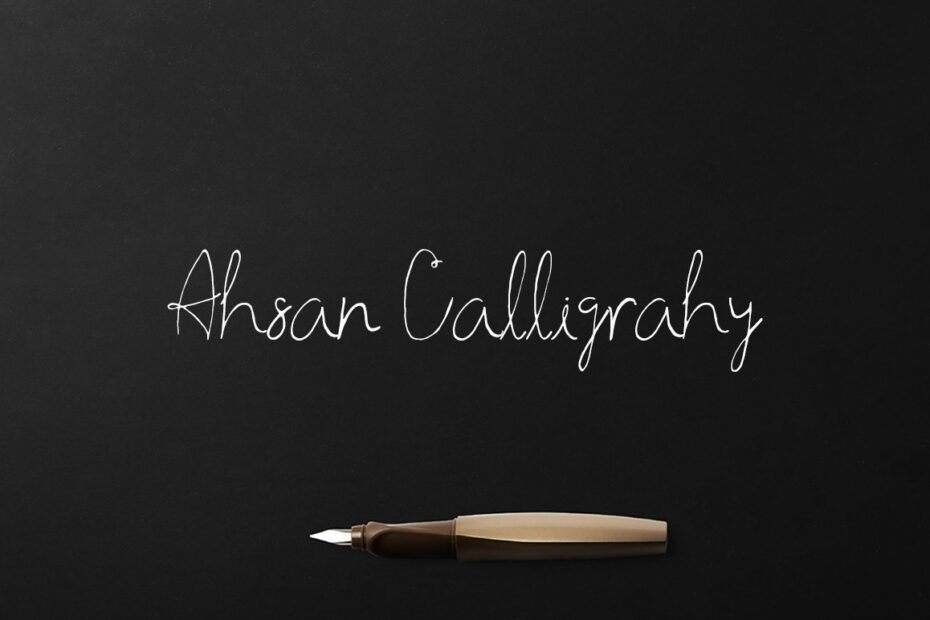
Unleashing the Art of Ahsan Calligraphy Font
There’s something magical about the moment when an idea sparks, and creativity flows. You’re sitting at your desk, surrounded by scraps of paper, and your imagination starts to run wild. The words begin to flow, and before you know it, you’ve created something beautiful. For designers, this moment is what it’s all about – bringing a vision to life.
For those seeking the perfect font to elevate their designs, we present the Ahsan Calligraphy Font. This stunning script font is designed with contemporary, enlightened accents, making it a versatile choice for a wide range of designs. From elegant invitations to modern branding, the Ahsan Calligraphy Font is the perfect addition to any project.
With its full set of gorgeous uppercase and lowercase letters, numerals, punctuation, and ligatures, the Ahsan Calligraphy Font offers endless possibilities for designers. Its value lies in its ability to add a touch of sophistication and elegance to any design, making it a must-have for any creative project.
Ahsan Calligraphy Font Key Features
- Font Style: The Ahsan Calligraphy Font is a beautiful, elegant script font designed for calligraphy and artistic purposes.
- Language Support: The Ahsan Calligraphy Font supports a wide range of languages, including Arabic, Persian, Urdu, and English, making it a versatile choice for multilingual designs.
- Unique Characteristics: The font features intricate, hand-crafted calligraphy and ornate details, giving it a unique and sophisticated look that sets it apart from other fonts.
Ahsan Calligraphy Font Review
I’ve had the chance to work with the Ahsan Calligraphy Font, and I must say it’s a unique and interesting addition to any design project. ✨ One of the things that works well is the elegant and intricate design, which is perfect for creating a sense of sophistication and luxury. The font’s ability to add a touch of cultural flair is also a major plus, especially when working on projects that require a Middle Eastern or South Asian aesthetic.
Another advantage of the Ahsan Calligraphy Font is its wide range of languages supported. ✨ This makes it an excellent choice for multinational companies or organizations that need to communicate with diverse audiences. Additionally, the font’s compatibility with various devices and operating systems is seamless, which is always a bonus.
- ⚠️ Limited font sizes: The Ahsan Calligraphy Font may not be the best choice for large-scale text or headings, as the intricate details can get lost.
- ⚠️ Kerning issues: At times, the font’s kerning can be off, which may affect the overall readability and aesthetic of the text.
Overall, the Ahsan Calligraphy Font is a solid choice for designers who want to add a touch of elegance and cultural flair to their projects. While it may have some limitations, its unique design and wide range of languages supported make it a valuable addition to any design library.
Tips for Getting the Most Out of Ahsan Calligraphy Font
Common Use Cases for Ahsan Calligraphy Font